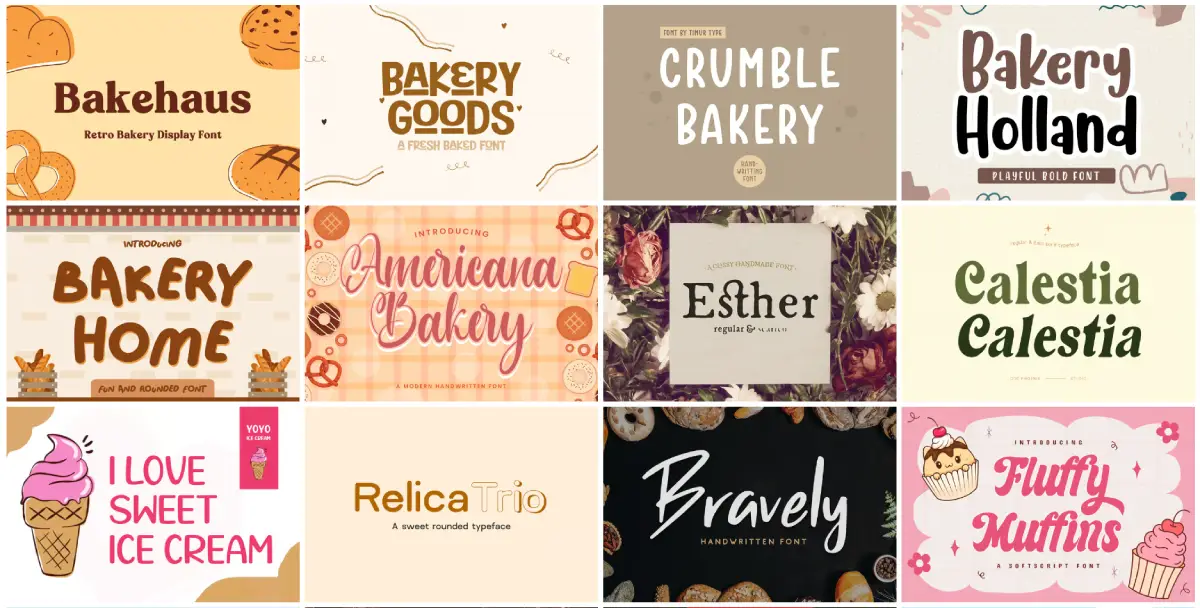
When it comes to designing for the nice and cozy, inviting global of baked goods, bakery fonts play a key role in developing the proper vibe.
From the instant a purchaser glances at a café menu or visits a internet site full of freshly baked treats, the proper font can evoke the sweetness and allure of pastries, cakes, and breads. Whether you are aiming for rustic beauty or playful whimsy, these fonts help inform the story of your bakery in fashion.
In this guide, we’ve got rounded up the great bakery fonts to help increase your designs. Each font has been selected with care, balancing creativity and practicality to match more than a few bakery-related tasks. Whether you are designing a brand, crafting product packaging, or fresh your branding, you’ll find a font here to fit your imaginative and prescient.
Get geared up to find out fonts that combine softness, warmth, and man or woman—each as pleasant because the baked goods they constitute.
1. Bakery Home – Funny Font
Bakery Home is a contemporary handwritten font, full of attitude and edginess that promises to please any designer. Its fun and quirky style gives it a character which makes it appropriate and usable for a wide range of designs. Be it a busy, colorful background or a concise and appealing heading, Bakery Home gives the right touch and appeal to your projects.
This font can be used for branding, packaging, logos, posters and even menus. With its balanced traits and good multilingual coverage, Bakery Home guarantees that your message would be beautifully conveyed in any media and context.
2. Bakerhouse Font
Bakerhouse is a lovely nutty font with deep and strong features inspired from the vintage calendar designs fashionable in the1930s that has variety of appealing decorations for finishing touches in your projects. There included bakeries, cafes or other food-oriented businesses, the font package is generously packed with everything a proud designer’s needs to create eye-catching designs.
The finer shapes of Bakerhouse and its rich ornamental style work towards providing you with a complete design suite to ensure your bakery’s brand looks appealing and tasteful.
3. Rolling Bakery Font
We’ve got an exciting announcement that comes courtesy of Timur Type; allow us to introduce Rolling Bakery, a rough handwritten style font embodying the most charismatic features of all. This font has its own tender, hand-knit feel complete with rounded corners, inspired by Latin letters’ form.
Additionally, Rolling Bakery consolidates through-end strokes and intricate outward sweeping movements which are emphasis of each design simultaneously, sophistication and personalization. Rolling Bakery’s crafted style makes this typeface perfect for headings, logos, or other artworks where uniqueness is paramount.
4. Bakery Holland Display Font
Bakery Holland is a sweet and fun display font that is suitable for different design ideas. It contains semi-bold letters which are playful and unique and thus, can be used for children’s subject themes, schools, birthdays, posters, ghettos, and other crafts designs.
Its cheerful and sweet disposition gives it a special place when it comes to designs that need to appeal and communicate happiness. As the font has been tagged as user-friendly for cutting machines, it is suitable for all kinds of projects – be it handmade or digitally printed crafts.
Rounding up the design with cute specifications is a builtin beauty of Bakery Holland. Have your projects with a dash of this stunning font and enjoy. The easy using font will surely transform your designs.
5. Bakehouse Font
Written word takes on a new dimension with Bakehouse Font. Script which can look incredibly eloquent focuses on combining handwritten sophistication and a fashionable element. With a character to each curve and stroke, texts become imaginative, textual works of art. With a feeling and warmth about them, texts have life of their own.
For individual projects like product packaging, branding projects, or magazines as well as various social media designs, Bakehouse Font creatively elevates wedding invitations and covers all of them. It works perfectly as a text overlay, effortlessly giving the whole project a personal, elegant look.